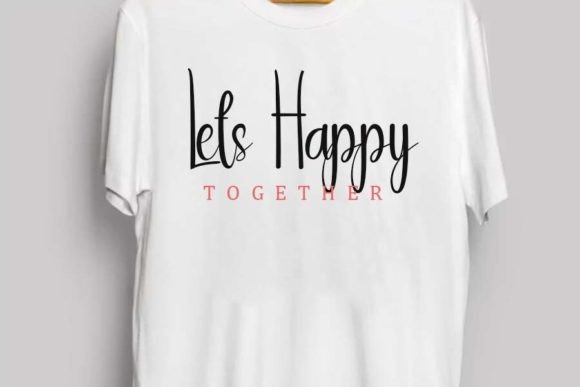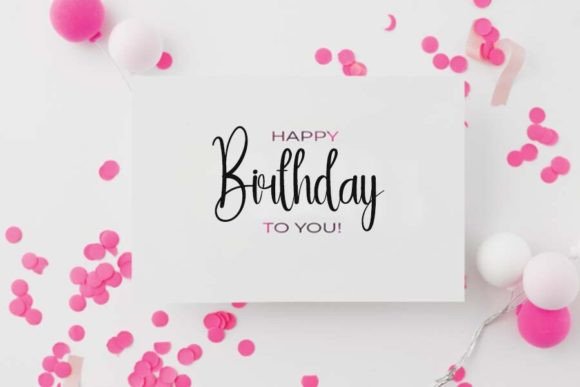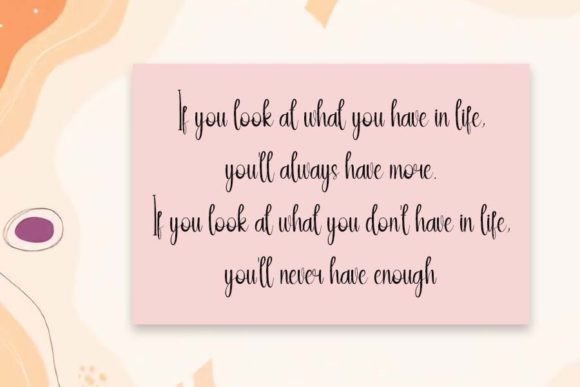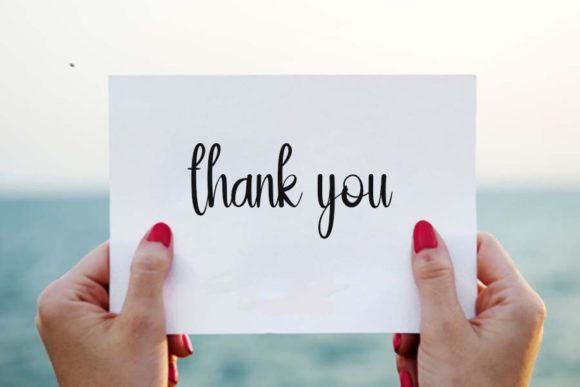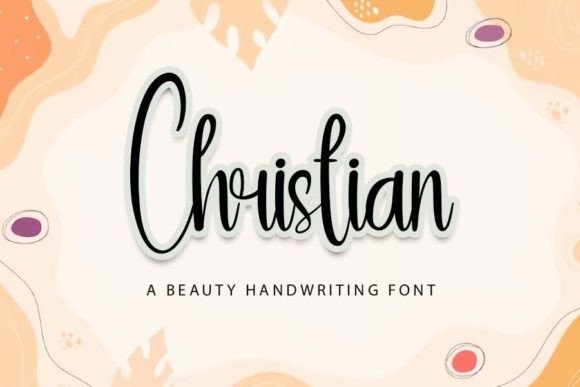
Introducing Christian Font: Elevate Your Designs with Timeless Elegance
In the world of typography, a well-crafted font can make all the difference in elevating your design projects from ordinary to extraordinary. For designers and crafters seeking a stylish and contemporary handwritten font, Christian Font is an exceptional choice. Inspired by timeless classic calligraphy, Christian Font brings a touch of sophistication and elegance to any project.
The Essence of Christian Font
Christian Font is a beautifully designed handwritten font that exudes a sense of refinement and poise. Its contemporary atmosphere and impeccable form make it an ideal choice for designers looking to add a touch of class to their work. With its balanced and varied letterforms, Christian Font is perfect for a wide range of design applications, from branding and advertising to packaging and digital media.
Key Features of Christian Font
• Handwritten with a Personal Touch: Christian Font boasts a unique, handwritten quality that adds a personal touch to your designs. Its elegant letterforms are carefully crafted to convey a sense of sophistication and style.
• Contemporary yet Timeless: While Christian Font has a distinctly modern feel, its inspiration from classic calligraphy ensures that it remains timeless and versatile. This font is suitable for a wide range of design projects, from modern branding to traditional craft applications.
• Balanced and Varied: The font’s balanced and varied letterforms ensure that your text remains legible and visually appealing, even at smaller sizes. This makes Christian Font an excellent choice for body text, headings, and titles.
Applications of Christian Font
Christian Font’s versatility and elegance make it suitable for a wide range of design applications, including:
• Branding and Identity: Use Christian Font to create stunning logos, business cards, and letterheads that reflect your brand’s personality and values.
• Advertising and Marketing: Add a touch of sophistication to your advertising materials, including brochures, flyers, and social media graphics.
• Packaging and Product Design: Elevate your product packaging with Christian Font, adding a touch of elegance and refinement to your product labels and packaging materials.
• Digital Media: Use Christian Font in your digital projects, including website design, email marketing, and social media graphics.
Tips for Using Christian Font
To get the most out of Christian Font, consider the following tips:
• Pair with Complementary Fonts: Combine Christian Font with complementary fonts to create visual interest and hierarchy in your designs.
• Experiment with Colors and Textures: Add depth and dimension to your designs by experimenting with different colors and textures.
• Pay Attention to Legibility: While Christian Font is designed to be legible, ensure that your text remains clear and easy to read, especially at smaller sizes.
Christian Font is a stunning handwritten font that brings a touch of elegance and sophistication to any design project. With its contemporary atmosphere, impeccable form, and balanced letterforms, this font is perfect for designers and crafters seeking to elevate their work. Whether you’re creating branding materials, advertising graphics, or digital media, Christian Font is an excellent choice. So why wait? Discover the beauty of Christian Font and take your designs to the next level.